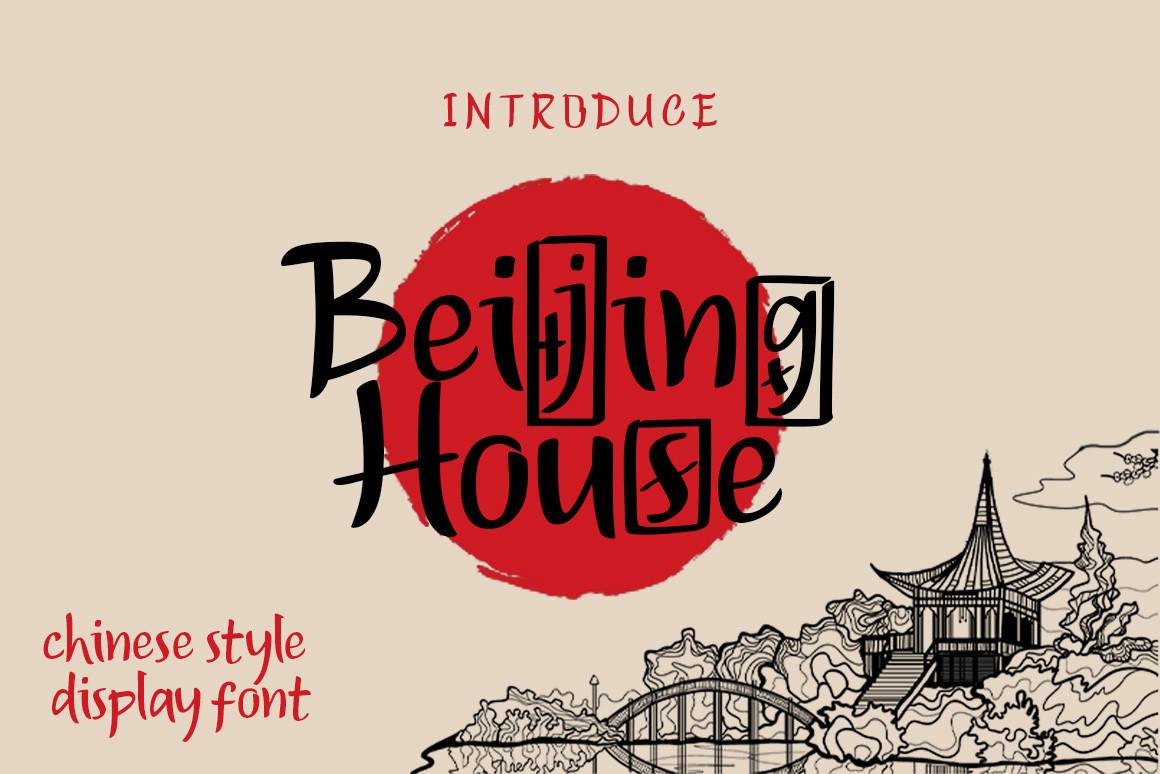
Beijing House Font Description
Beijing House is an incredibly unique, Japanese inspired display font. It will look stunning on any food menu, poster flyer or print. Beijing House is PUA encoded which means you can access all of the glyphs and swashes with ease!